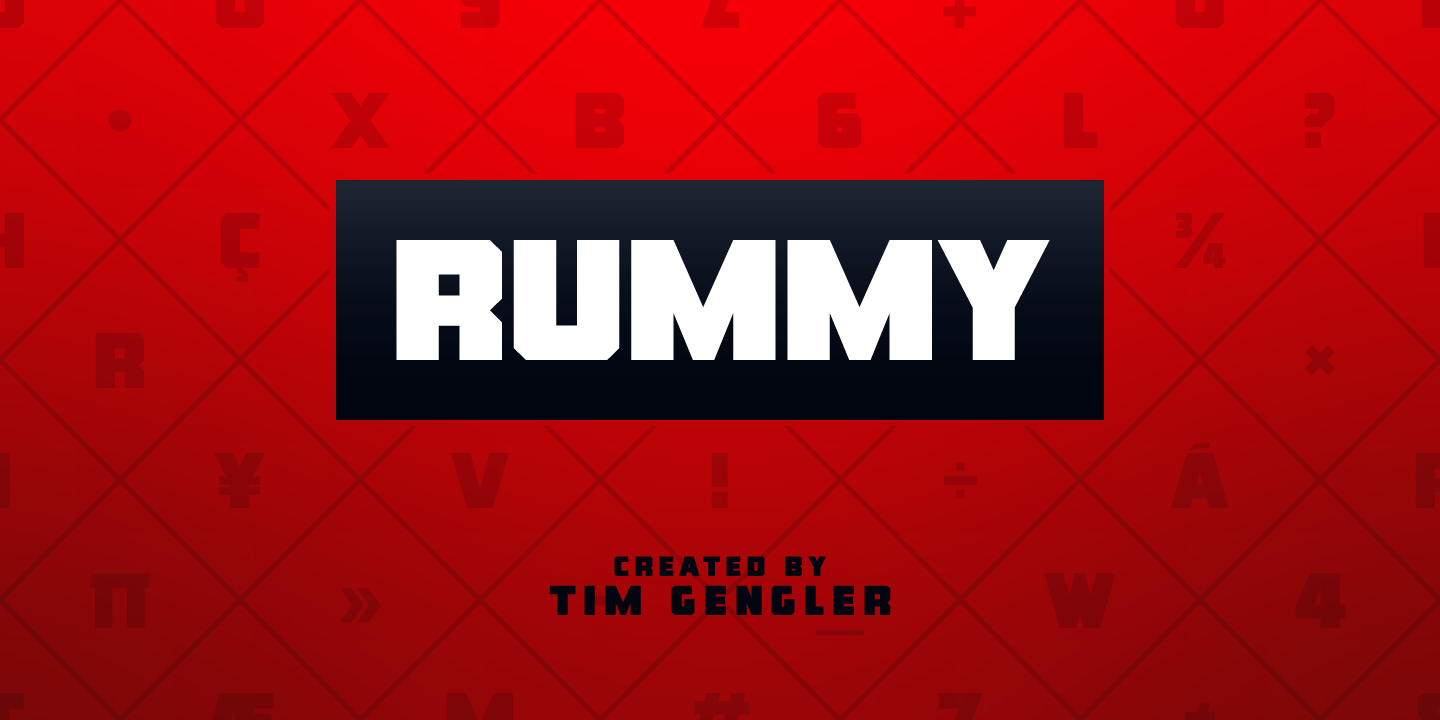
This playful typeface is perfect for card game tournaments, casino entertainment branding, game night event promotions, playing card packaging, board game companies, gambling establishment signage, recreational gaming communications, and family entertainment marketing that requires gaming sophistication and card-playing authenticity with competitive elegance and strategic charm.
Rummy Font is exciting because it perfectly captures the strategic excitement and social enjoyment of classic card games through its cleverly designed letterforms that evoke the tactical thinking and competitive spirit found in traditional card playing. The font's distinctive character design and gaming aesthetic reflect the world of strategic card games and friendly competition, making it perfect for entertainment brands that want to convey gaming authenticity, strategic sophistication, and the kind of card-playing charm that appeals to players seeking genuine gaming experiences and authentic competitive entertainment.
The Rummy Font family includes gaming-inspired variations and card-playing styling options, featuring regular, bold, deck, and tournament versions, along with strategic design elements and card game alternates that provide gaming companies and designers with comprehensive typographic tools for creating authentic card game branding and engaging competitive communications.
Deal yourself winning typography with Rummy Font Free Download, a typeface that brings card game sophistication to contemporary gaming and entertainment branding projects. This exceptional font combines strategic thinking with playful functionality, making it an indispensable resource for card game manufacturers, casinos, and designers working on gaming or competitive entertainment marketing campaigns. The strategically crafted letterforms ensure excellent readability while conveying the gaming authenticity and card-playing sophistication that defines this distinctly competitive and authentically card game-inspired typeface.